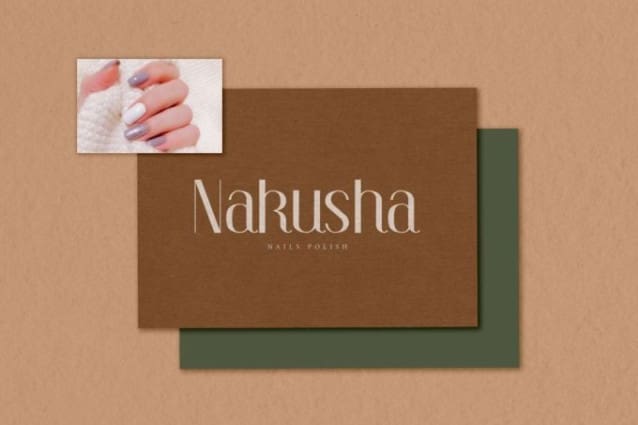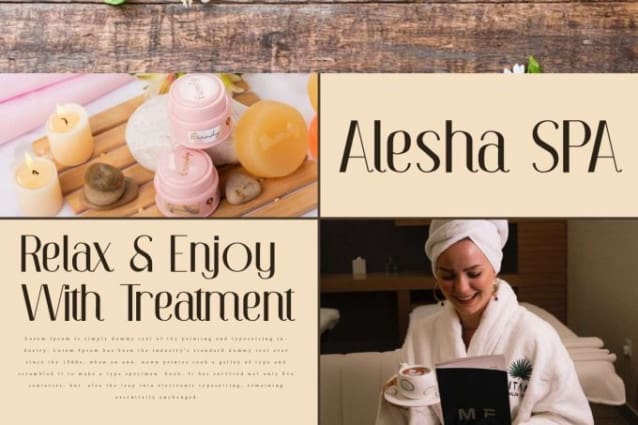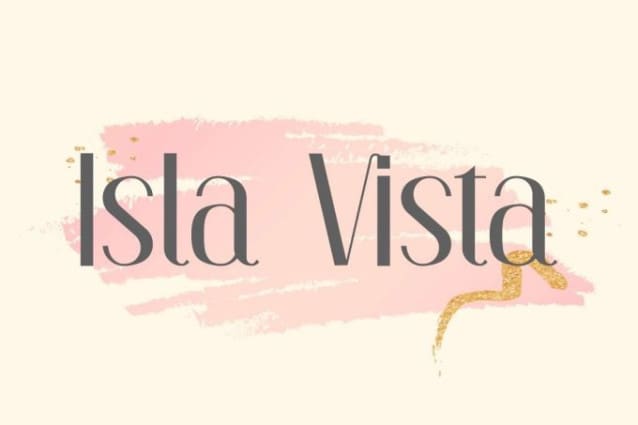
Isla Vista Font
Isla Vista Font is a casually modern sans serif font with beautiful minimalist style. This font has a casual and basic look so it can be used in a variety of timeless designs, such as brochure, business card, cover, custom design, gift box, invitation, label, poster, product packaging, quote, screen printing, website, and more!
Isla Vista Font includes full set of Uppercase and Lowercase Basic Characters, Numerals, Punctuation, and Symbol. This modern font is suitable for industries, such as advertisement, café, fashion, furniture, handicraft, resort, restaurant, spa and salon, etc.